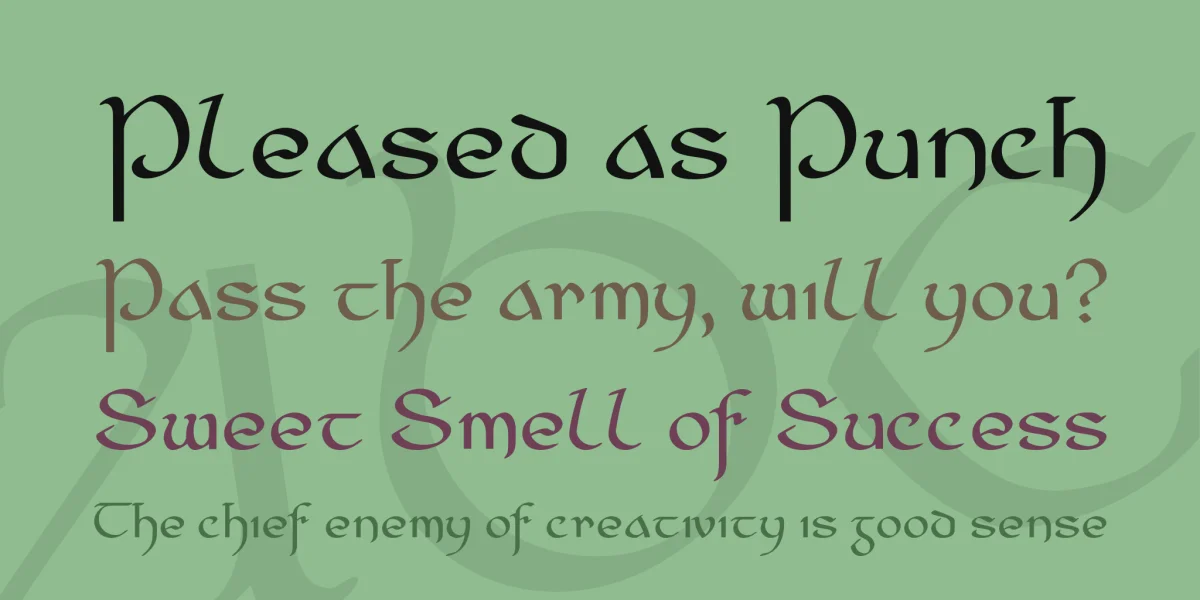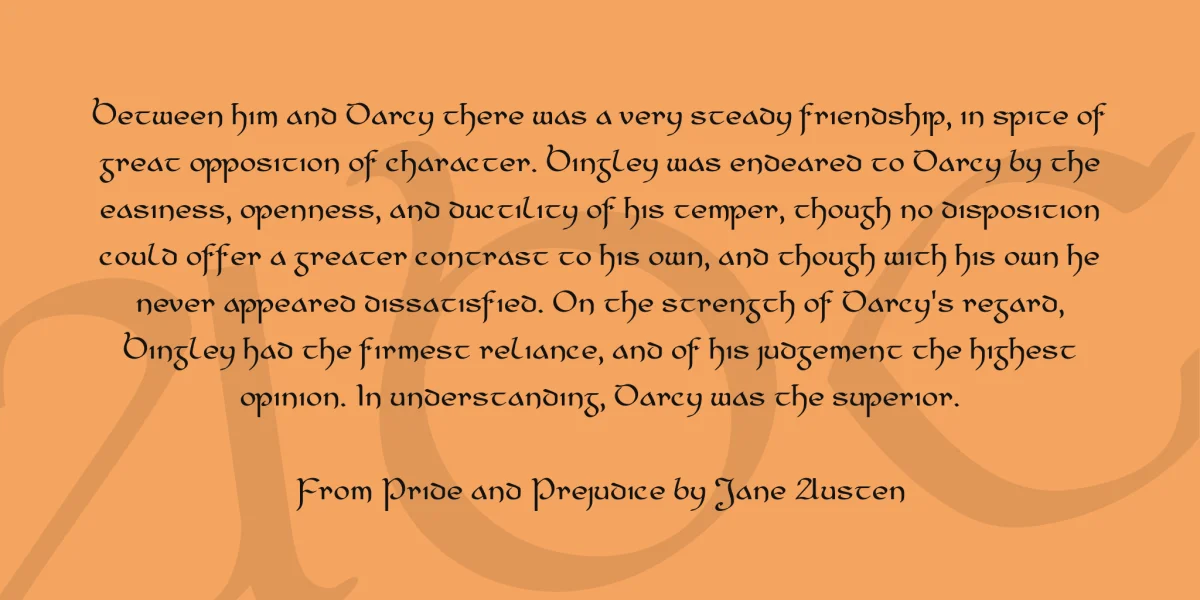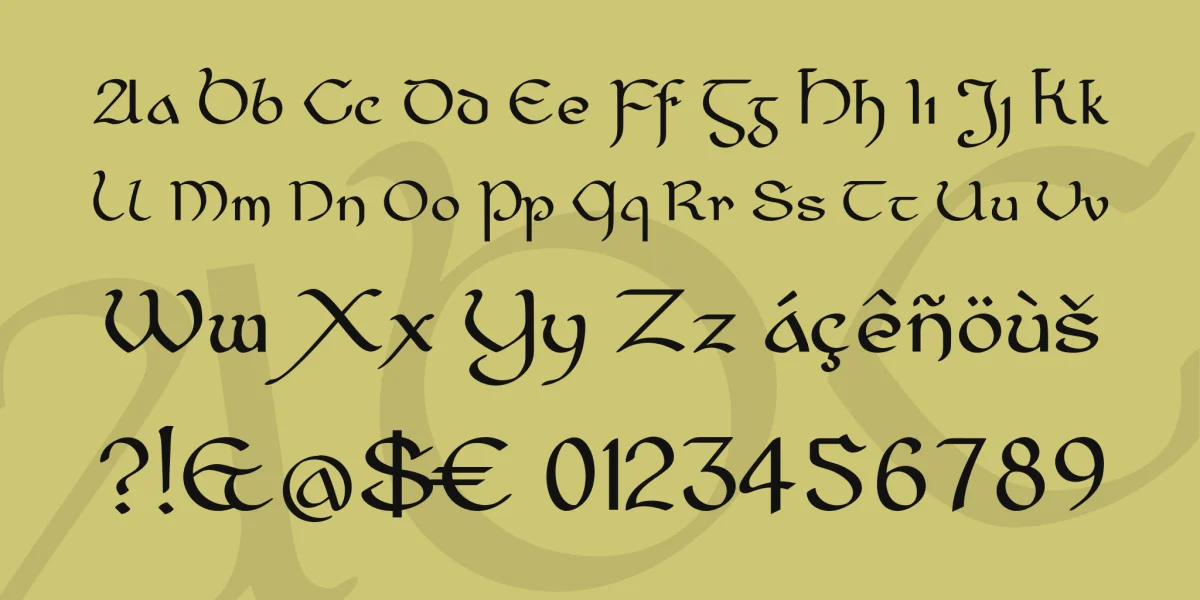
Cianán Ùr (New Cianán) is a typeface based on an earlier work of mine, Cianán, though the similarity is a little tenuous. It covers all European languages written with the Latin script, and Vietnamese. Greek characters are also available, but I make no promises about the kerning. This is an Insular font, and several of the letters have the distinct forms used in older Irish printing. If you don’t like these, Stylistic Set 01 contains more familiar glyphs. If you enable the appropriate OpenType feature (in InDesign it’s "[Automatic Form]" in the OpenType -> Positional Forms menu), the uppercase I will be different at the start of a word. There are also a number of Discretionary Ligatures available.